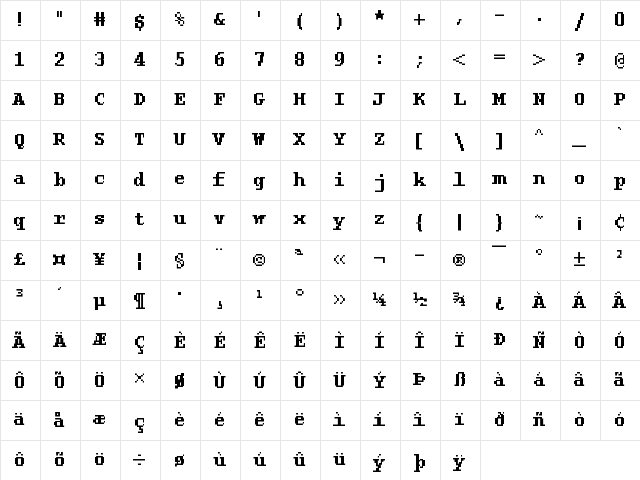
Sburbits Regular Free Font
Sburbits Regular
Designer: JewishDanny
Design Context for Sburbits
Sburbits is a composed and adaptable typeface that performs quietly and consistently across a wide range of design contexts.
Pro Tip: Use Sburbits in both headline and body roles to test its range before committing to a single application.